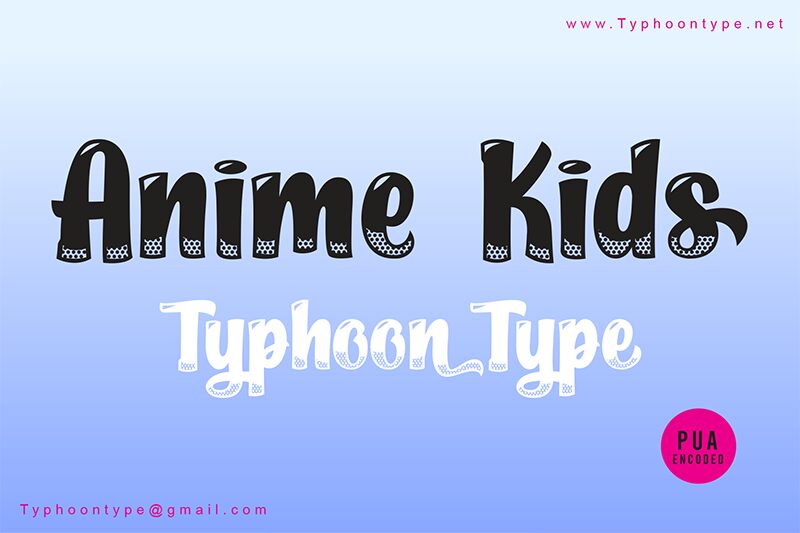
Anime Kids is a bold and playful display font designed by Typhoon Type - Suthi Srisopha. With its cartoon-inspired style, this font is perfect for adding a vibrant touch to various projects. From children's book covers and posters to animated videos and gaming interfaces, Anime Kids brings a fun and energetic vibe to any design. Its bold weight ensures maximum visibility, making it an ideal choice for headlines, logos, and branding materials. Let your creativity soar with Anime Kids as you create captivating designs that will delight both kids and adults alike.